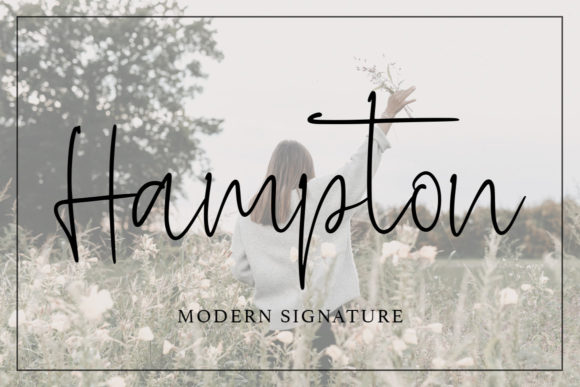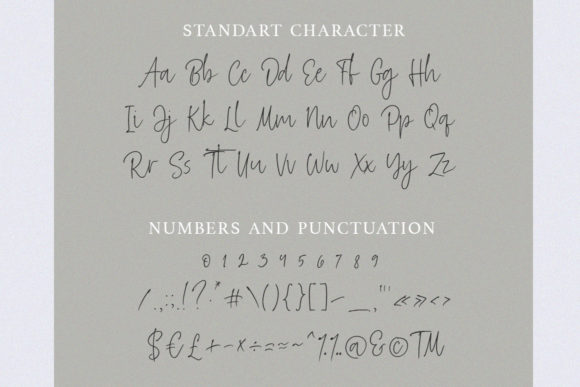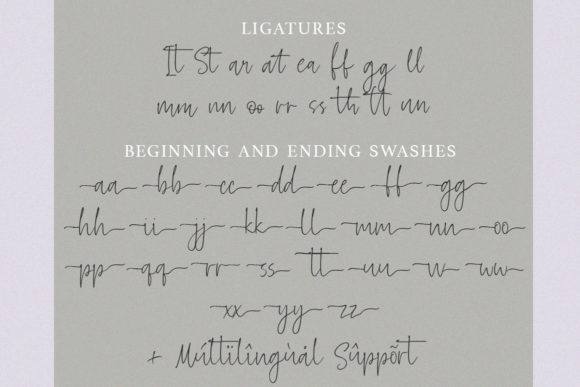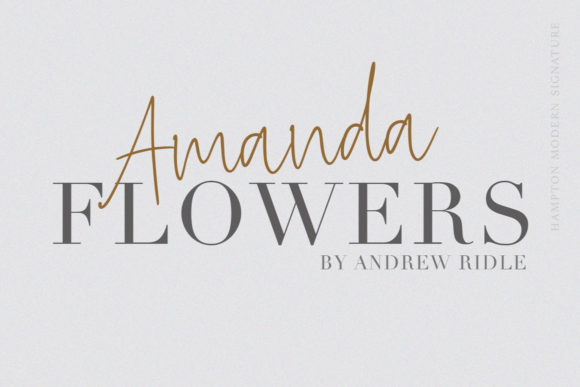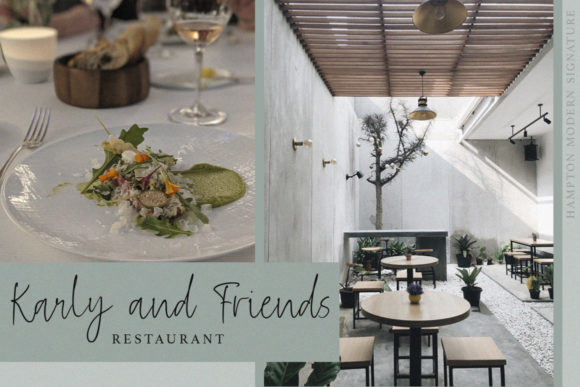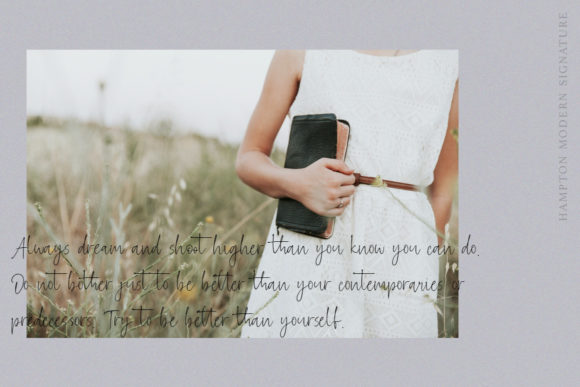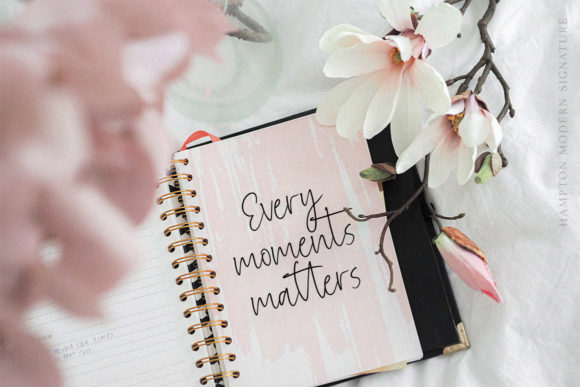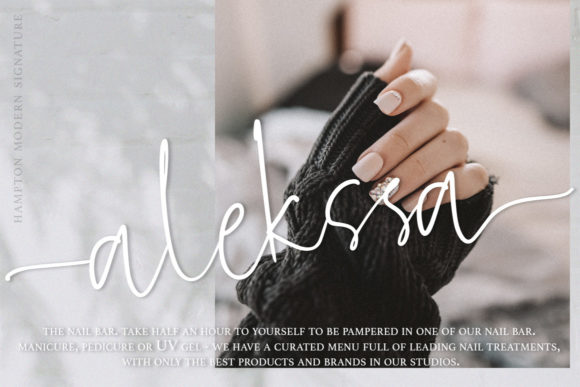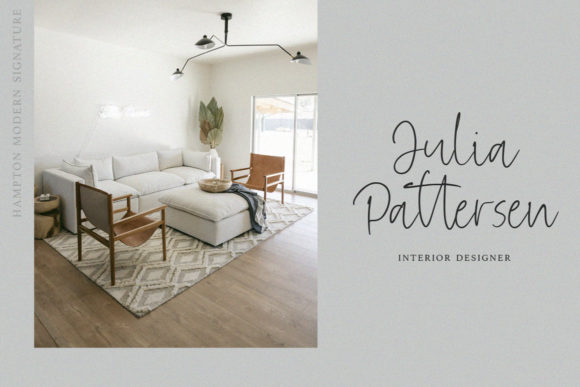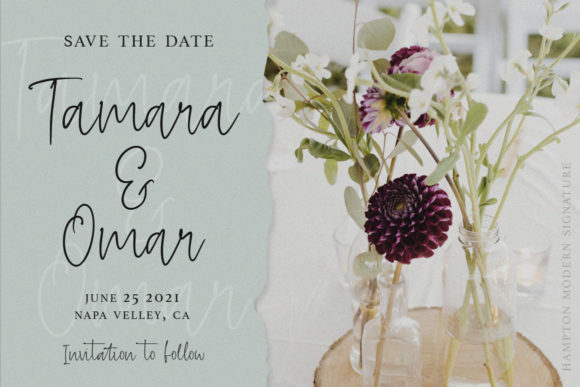
Hampton Font
About Hampton Font
Hampton is a stunning cursive font that exudes style and elegance. With its thin and delicate letterforms, this font adds a touch of sophistication to any design project. Whether you’re working on wedding invitations, branding materials, editorial designs, or any other creative endeavor, Hampton is sure to elevate your designs.
The stylish and flowing nature of Hampton gives it a sense of grace and charm. Each letter is carefully crafted with thin strokes and beautiful curves, creating a visually pleasing and harmonious look. The thin letterforms add a sense of refinement and delicacy, making Hampton an excellent choice for projects that require a touch of sophistication.
The versatility of Hampton allows it to be used in a variety of design contexts. It looks particularly stunning on wedding stationery, giving a romantic and elegant feel to invitations, programs, and menus. It also adds a stylish touch to logos, branding materials, and editorial layouts, adding a sense of professionalism and class.
Despite its thin letterforms, Hampton remains highly legible and readable. The well-designed characters ensure that your message is conveyed clearly and effectively, even at smaller sizes or in longer text blocks.
By incorporating Hampton into your projects, you’ll add a sense of style and refinement that captures attention and leaves a lasting impression. Its cursive script and thin letterforms create a sophisticated and luxurious aesthetic, making it a valuable asset to your font library.